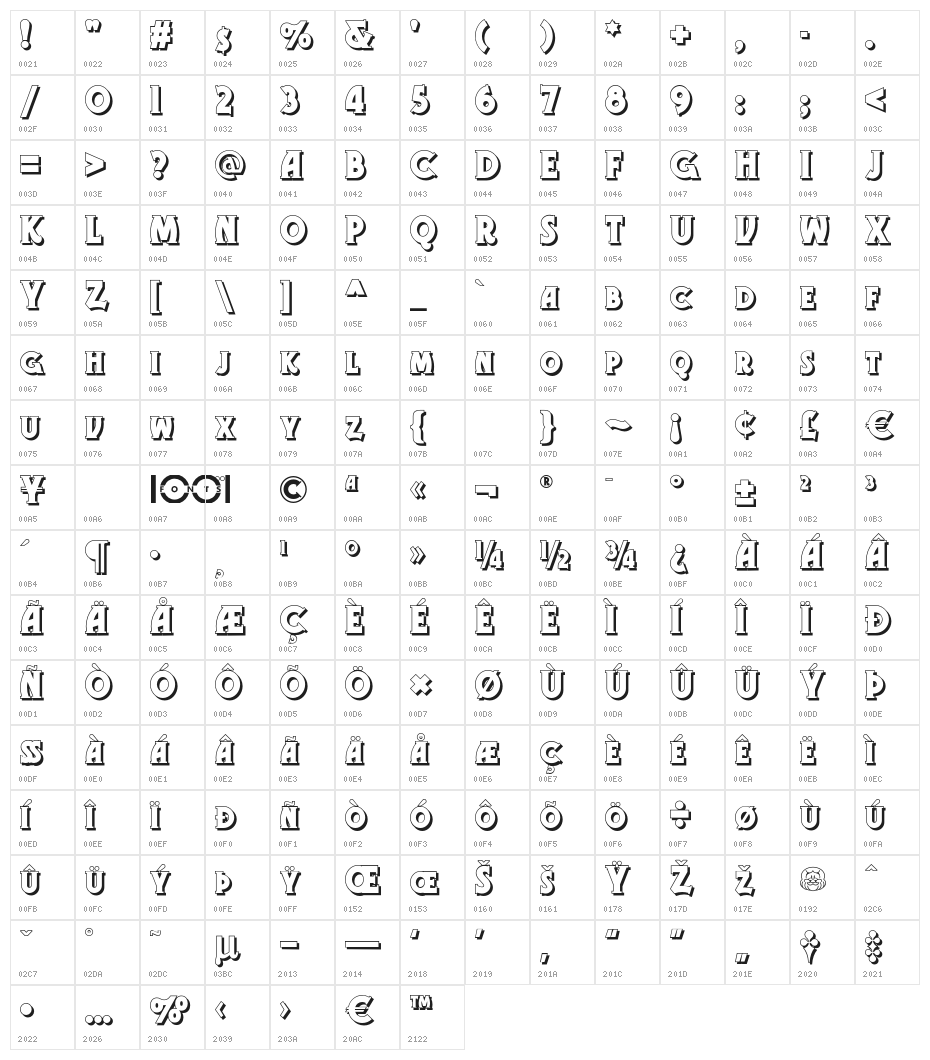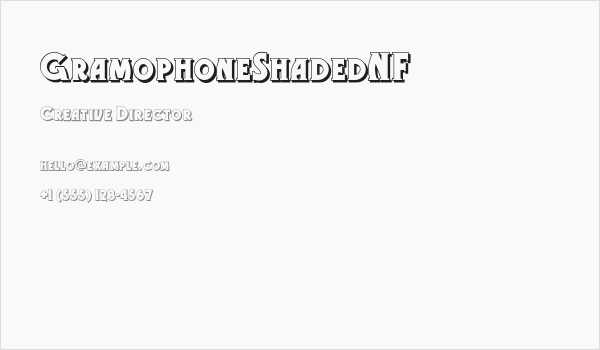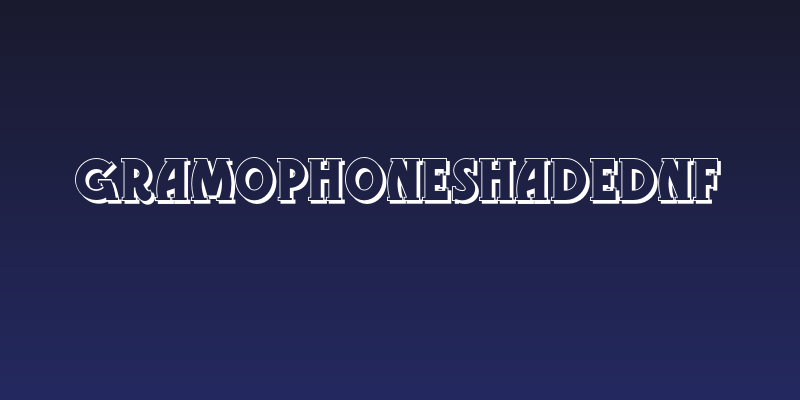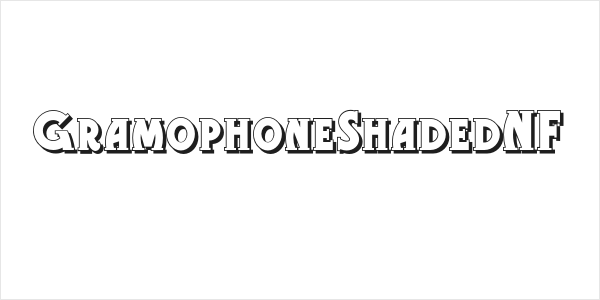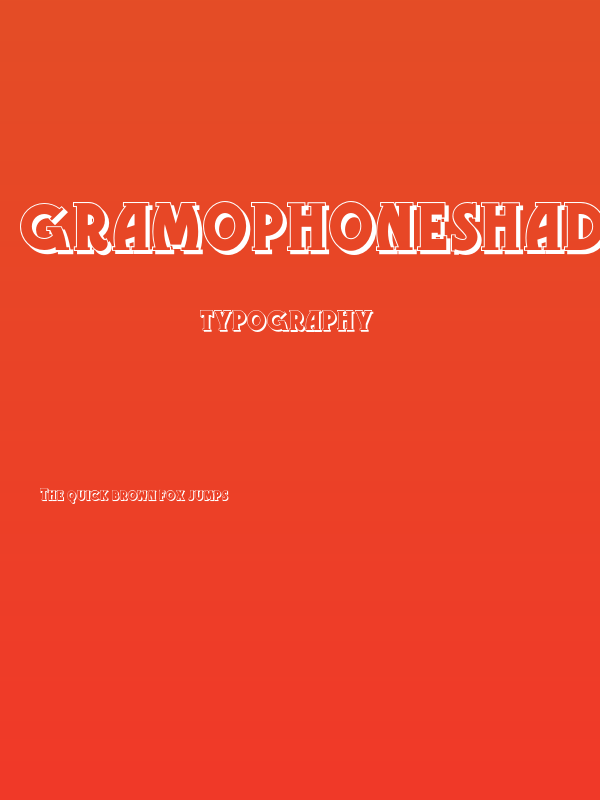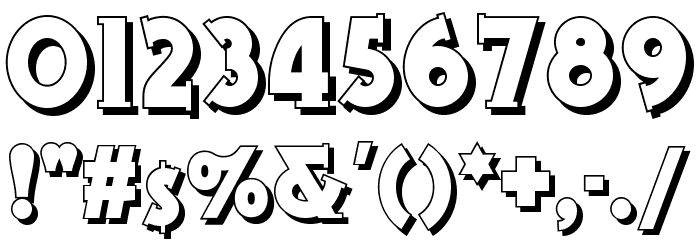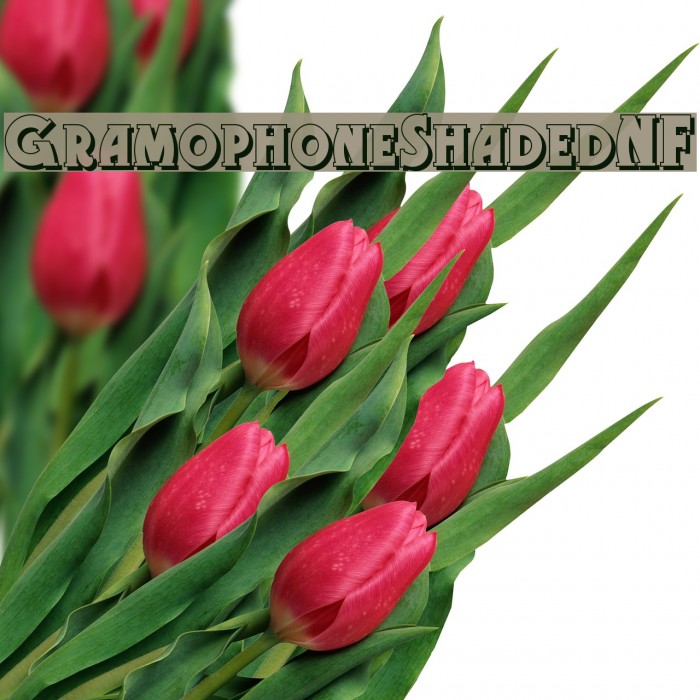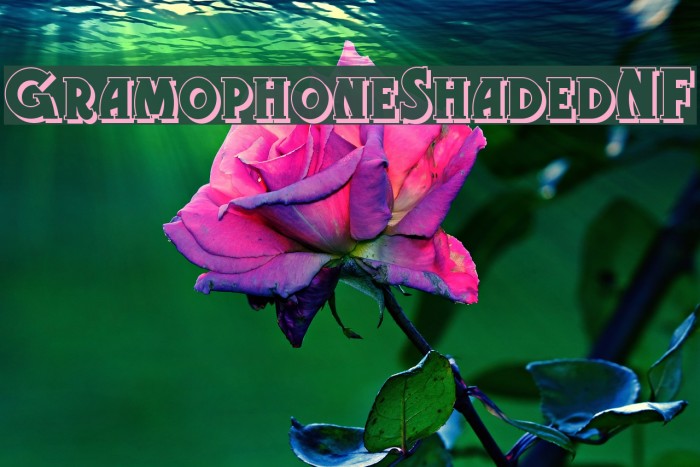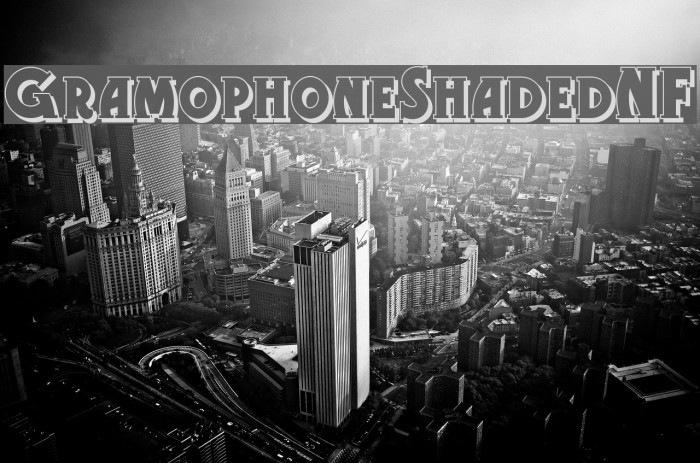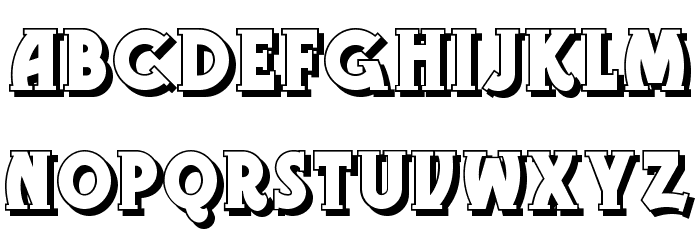
GramophoneShadedNF Font
GramophoneShadedNF Description
This font features a bold, decorative style with a distinct three-dimensional effect created by the shaded drop shadow. The characters are uppercase and lowercase with a consistent weight and width, giving them a strong presence. The design includes sharp, angular serifs and a playful, retro aesthetic reminiscent of vintage signage or posters. The numerals and special characters maintain the same bold and shaded characteristics, ensuring a cohesive look across all glyphs. The font's unique style makes it stand out, ideal for projects that require a touch of nostalgia and flair.